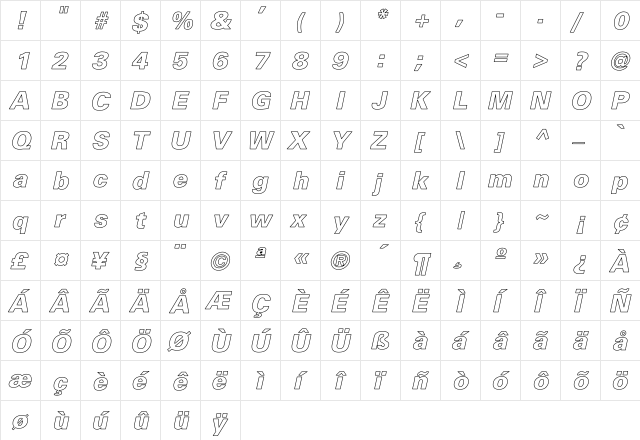
Univers-Black-Italic Hollow Regular
Design Context for Univers-Black-Italic Hollow Typeface
Univers-Black-Italic Hollow offers clean, dependable letterforms without strong stylistic allegiance, making it a practical choice for designers who need flexibility. The slanted form adds forward momentum and visual energy.
Pro Tip: Use Univers-Black-Italic Hollow for emphasis, pull quotes, and subheadings where its slanted energy can add rhythm to the layout.